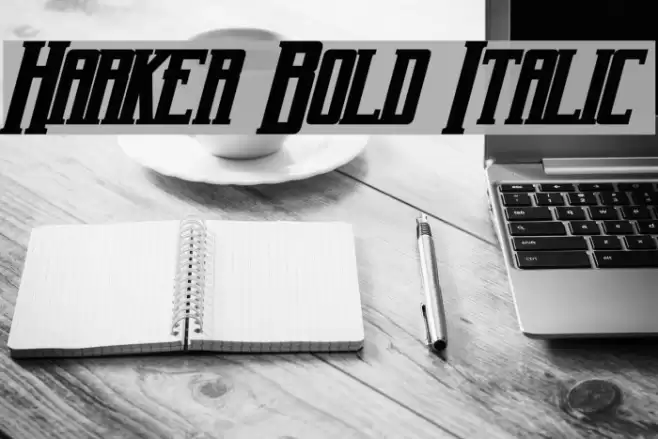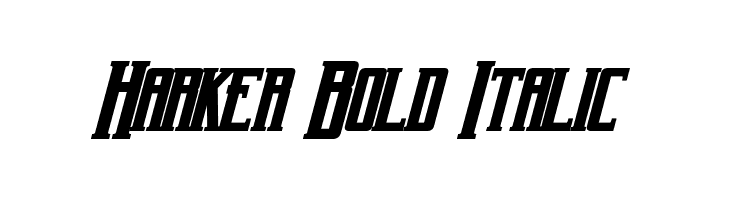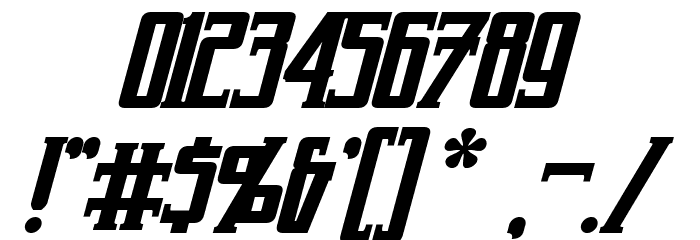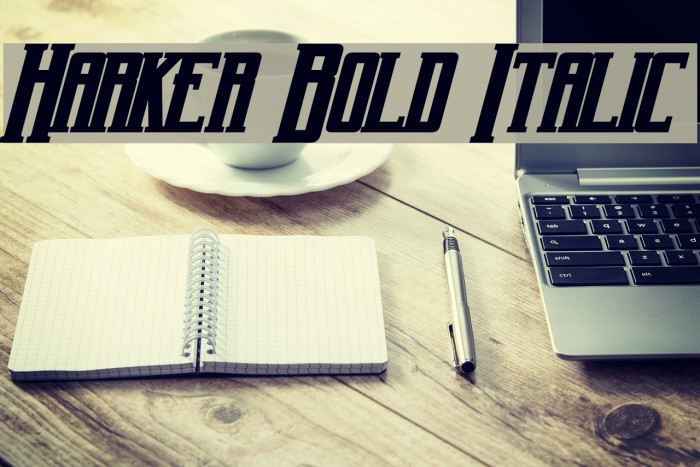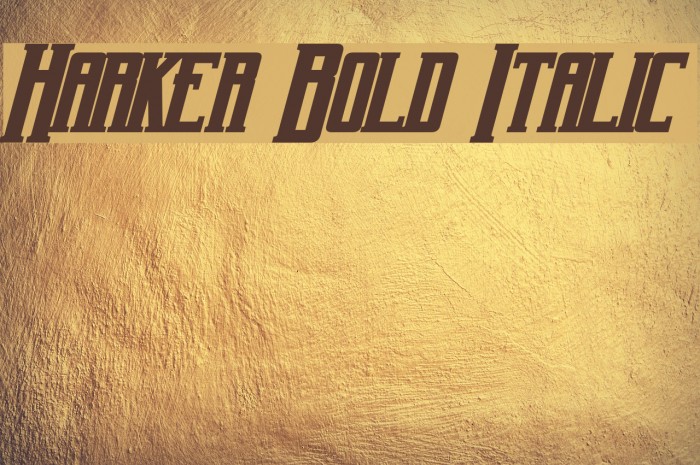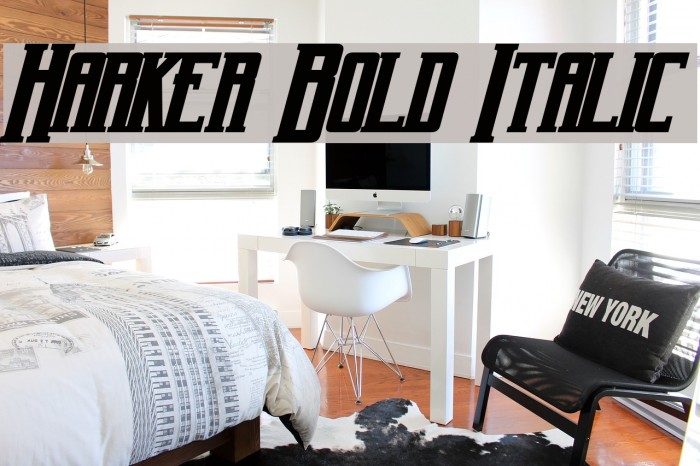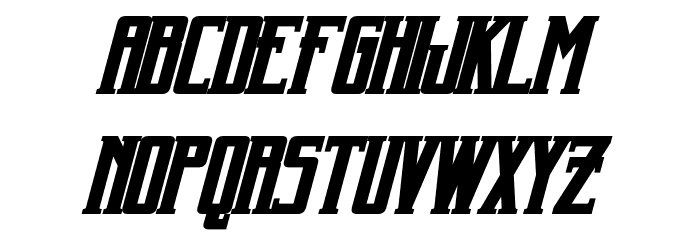
Harker Bold Italic Font
Harker Bold Italic Description
This font features a bold and italicized style with a strong, dynamic presence. The characters are sharply angled, giving them a sense of motion and energy. The strokes are thick and consistent, contributing to a high contrast between the characters and the background. This font is designed to stand out, with its condensed width and tight character spacing, making it ideal for impactful headlines and attention-grabbing displays. The overall style is modern and assertive, suitable for projects that require a bold statement.
A bold, italicized font with sharp angles and high contrast, perfect for dynamic headlines from Uncategorized fonts.
- Proposed Projects: Ideal for branding, sports team logos, poster headlines, and any project needing a bold, energetic typeface.
- Character Spacing: Tight